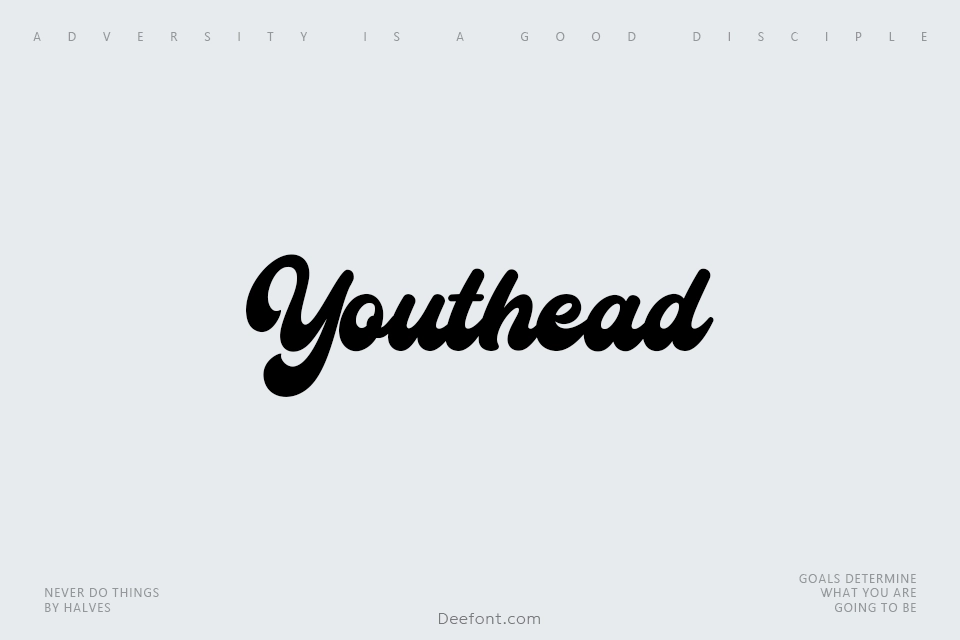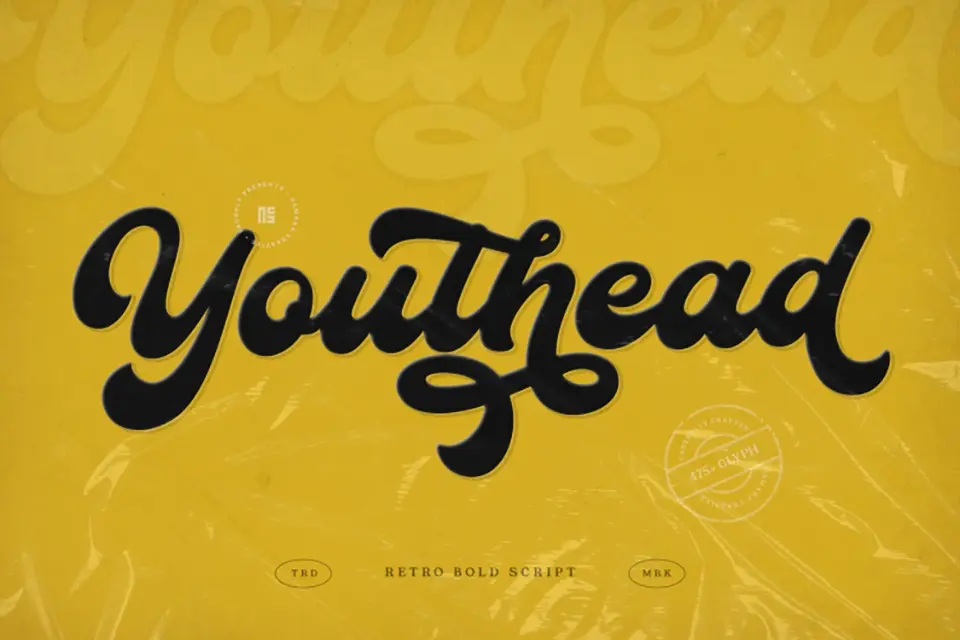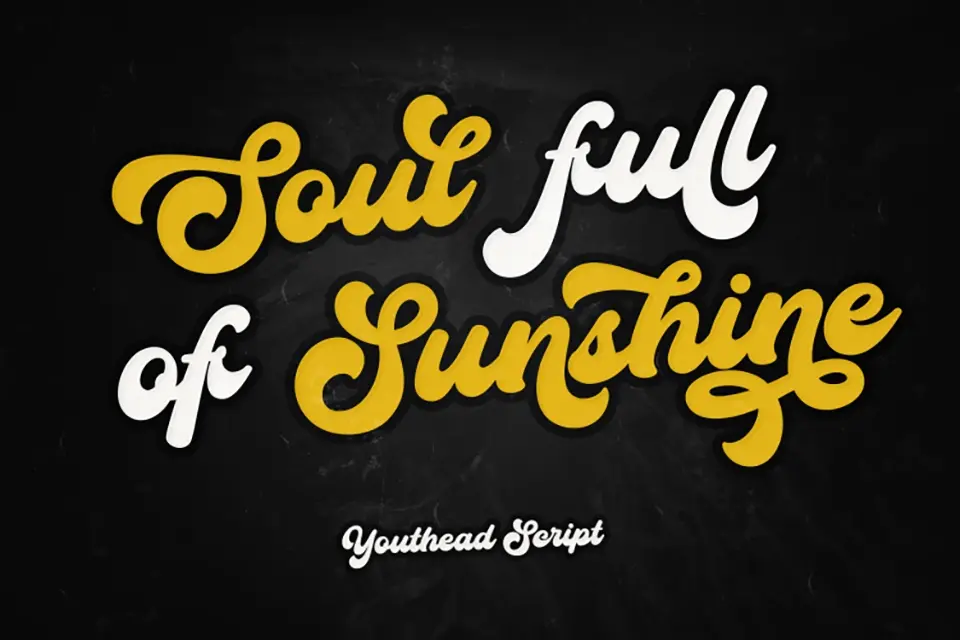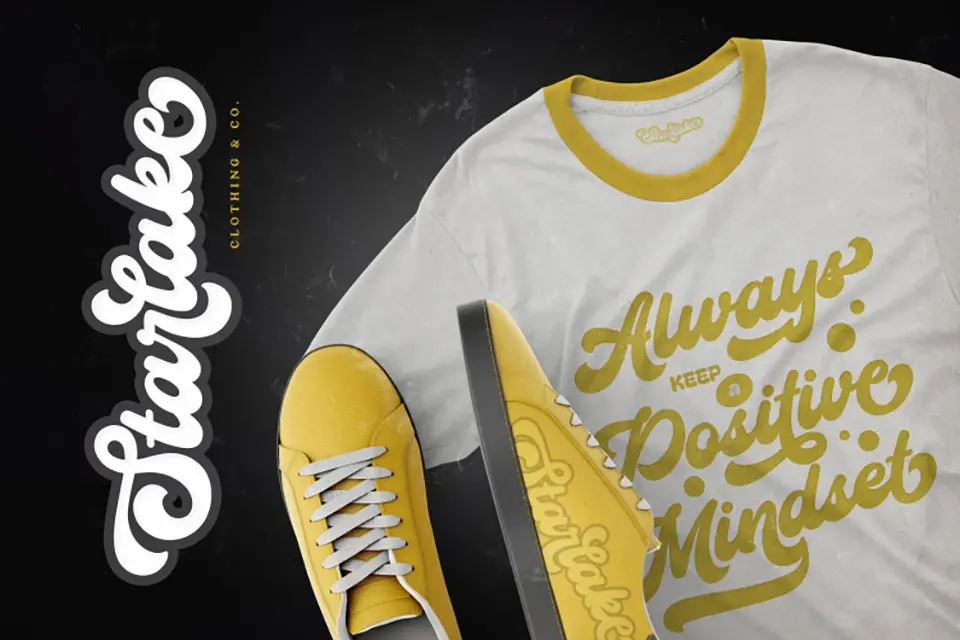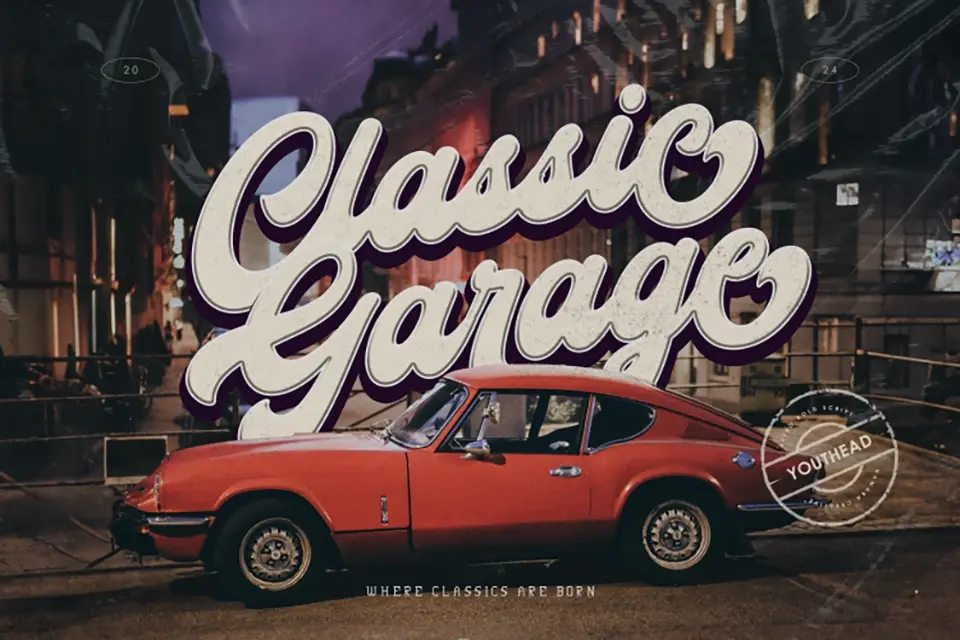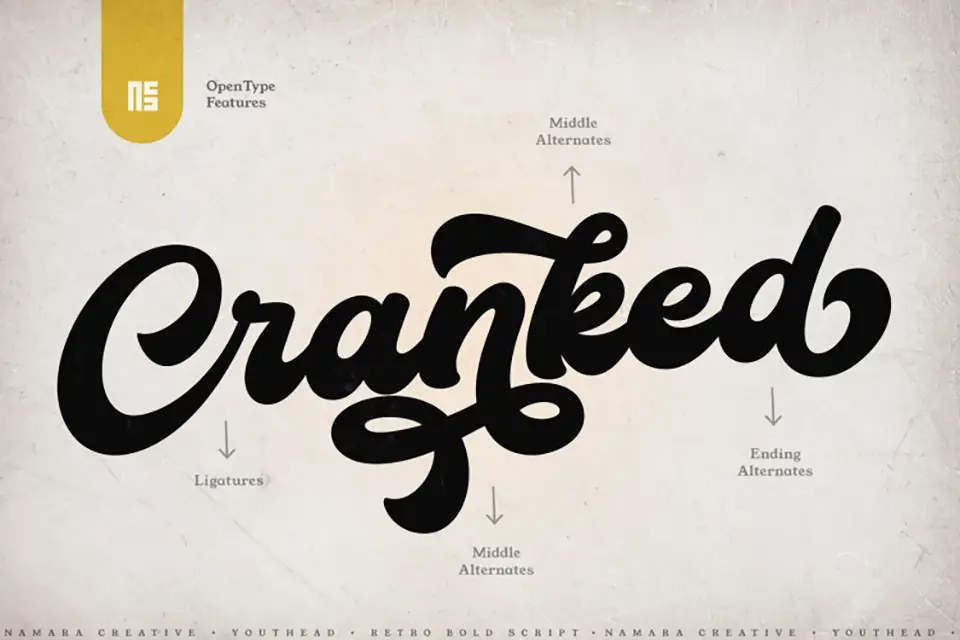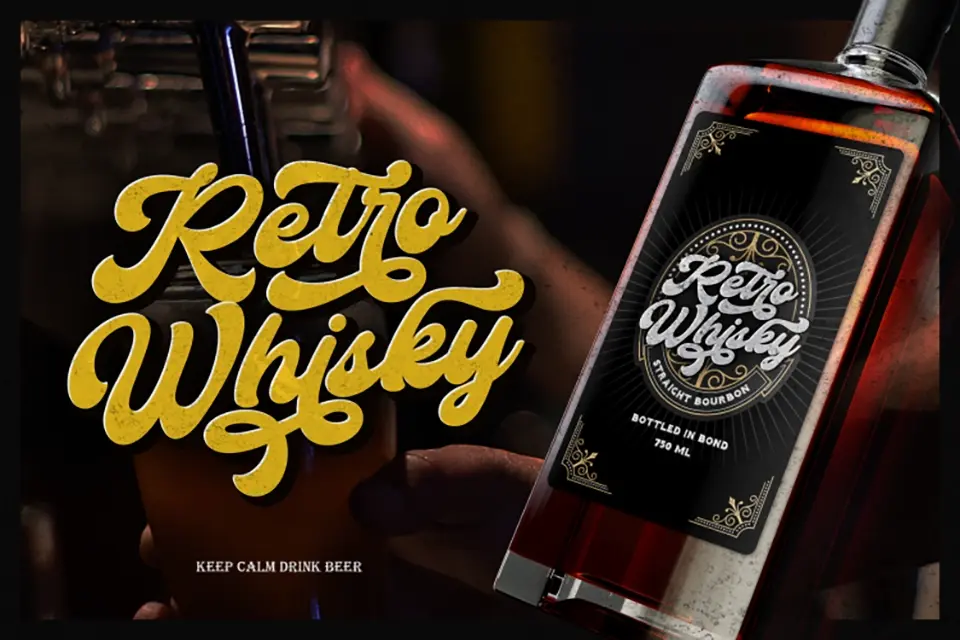
Youthead Script Font
Youthead Script is a retro bold script typeface that blends vintage charm with contemporary elegance. Designed by Namara Creative, this font combines the nostalgic essence of mid-20th-century typography with a fresh, modern twist. Features include a full set of standard characters, punctuations, alternates, ligatures, swashes, and multilingual support through PUA encoding. Perfect for branding, packaging, signage, and creative projects requiring distinctive retro-modern typography.